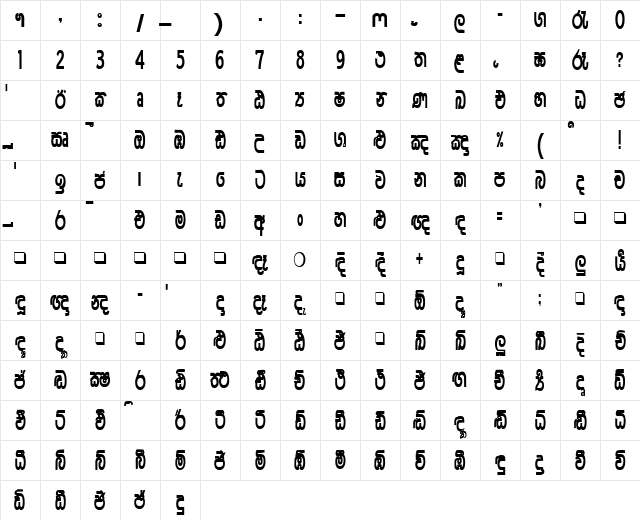
Complete Dl-Dulackshi. Plain. glyph index. Displaying only characters natively supported by Dl-Dulackshi. Plain. font.
Dl-Dulackshi. is a composed and adaptable typeface that performs quietly and consistently across a wide range of design contexts.